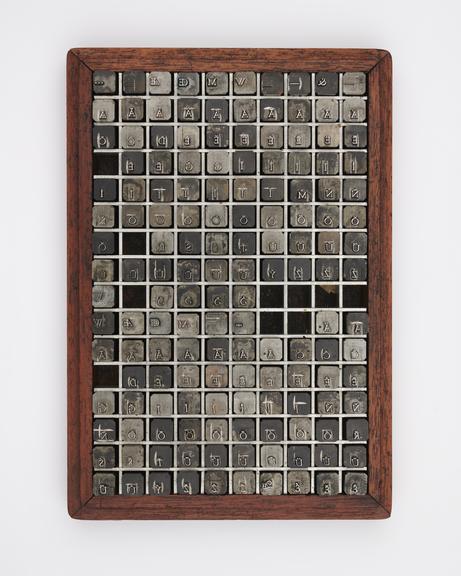
0.4 inch composition punches for Goudy Old Style (typeface series number: 291)
0.4 inch composition punches for Goudy Old Style (typeface series number: 291), font size 12. In an original wooden box and no suffix relating to the typeface is marked. Manufactured by Monotype Corporation.
A Monotype punch is made by tracing a pattern on a vertical pantograph machine. It is an engraved piece of hardened steel of a reverse-reading type character (letter, numeral or ornament) in relief from which the matrices are made. After cutting, the face of the punch was ground to the correct measurements denoted on the relevant chart. The punch was stamped into a piece of phosphor bronze that made a matrix from which type could be cast. Punches were made in standard sizes: 0.2" x 0.2", 0.4" x 0.4", 1" x 1", or 1" x 1.35". If a Monotype punch became damaged it could be replaced, identically, using the pattern.
Frederic Goudy (1865–1947) was one of America’s best known and most prolific type designers of metal type. Goudy’s work, like that of his fellow American, Bruce Rogers, linked the era of the great private presses with that of the typographical revivals of the 1920s. Goudy Old Style was first cut in 1915 for traditional founders American Typefounders and is regarded by many critics as one of his finest designs. It became available for use on Monotype machines from 1930 onwards. As with so many of his faces, Goudy began to design this face with historical models in mind. The capitals were modelled on Renaissance lettering, but as also often happened, the finished design bore little relation to the model. However it is notable for the strong imprint of the designer’s personality and the skilful adaptation to the purpose for which it was intended.
The roundness of the letters and the flowing curves are characteristic of Goudy’s work. The very short descenders and the evenness of colour contribute to the very practical qualities of the typeface. Apparently the designer regretted the shortness of the descenders. The serifs are small and not sharp; the ‘Q’ has an external tail; and the ear of the ‘g’ flicks upwards.
The Monotype Corporation manufactured 16 sizes from 6pt to 72pt between 1930 and 1940. Sales were good and particularly high for 8pt, 10pt and 12pt. A companion bold with italic is also available.